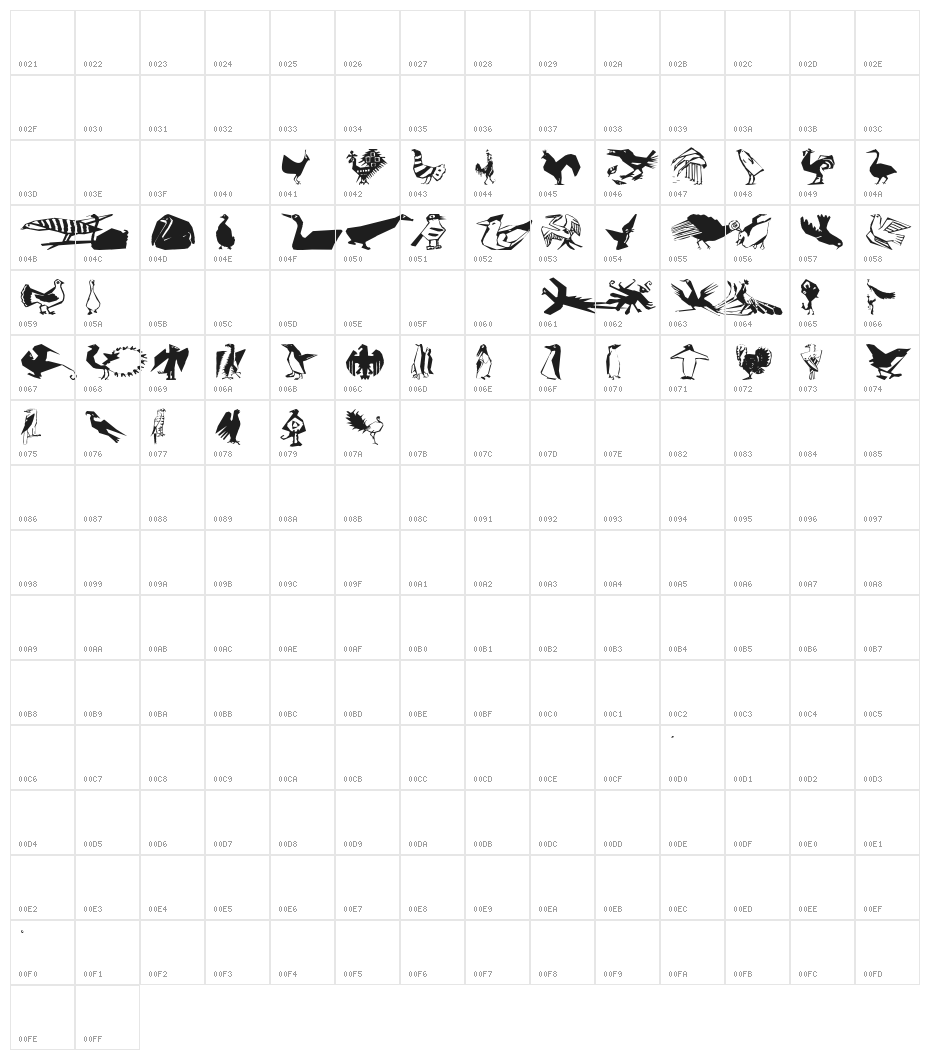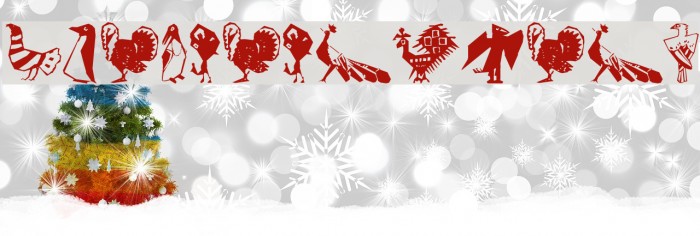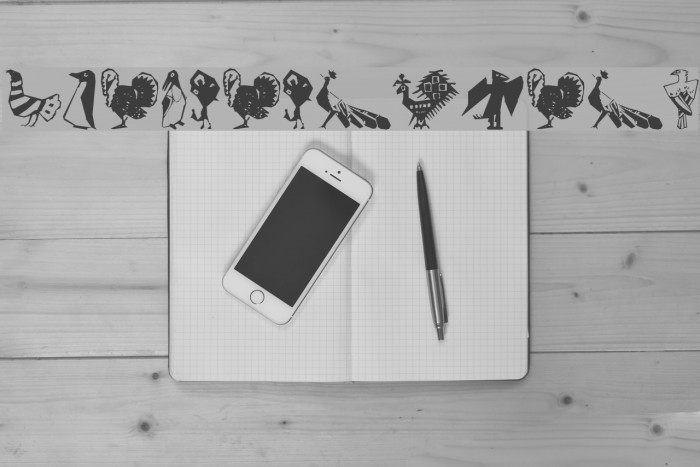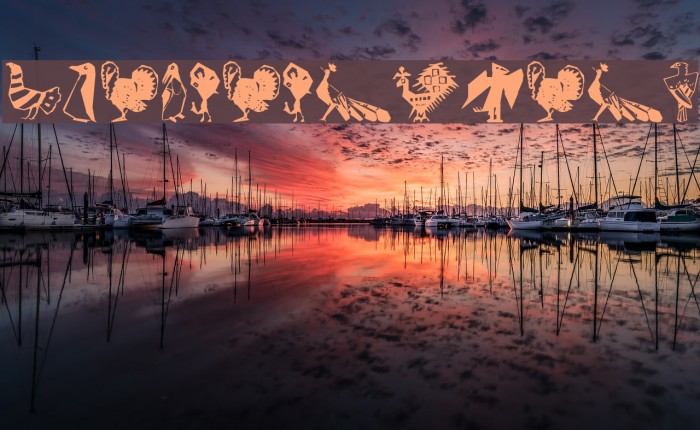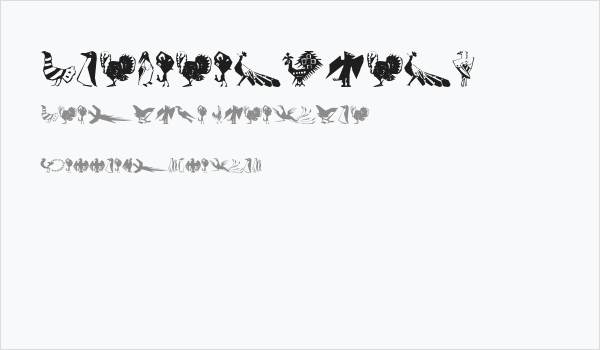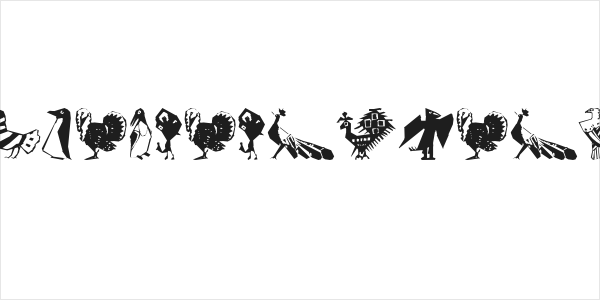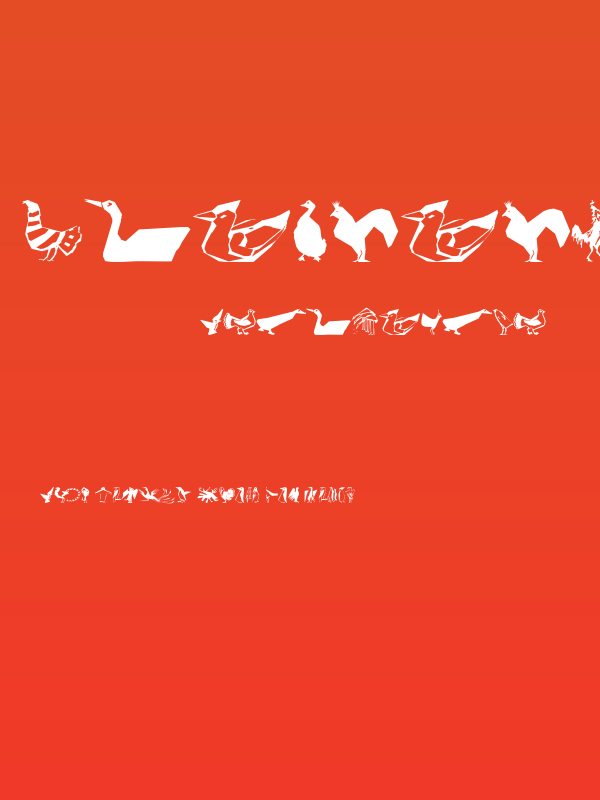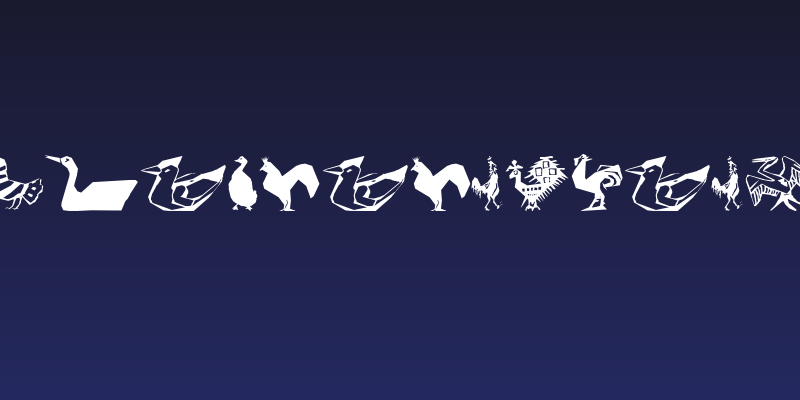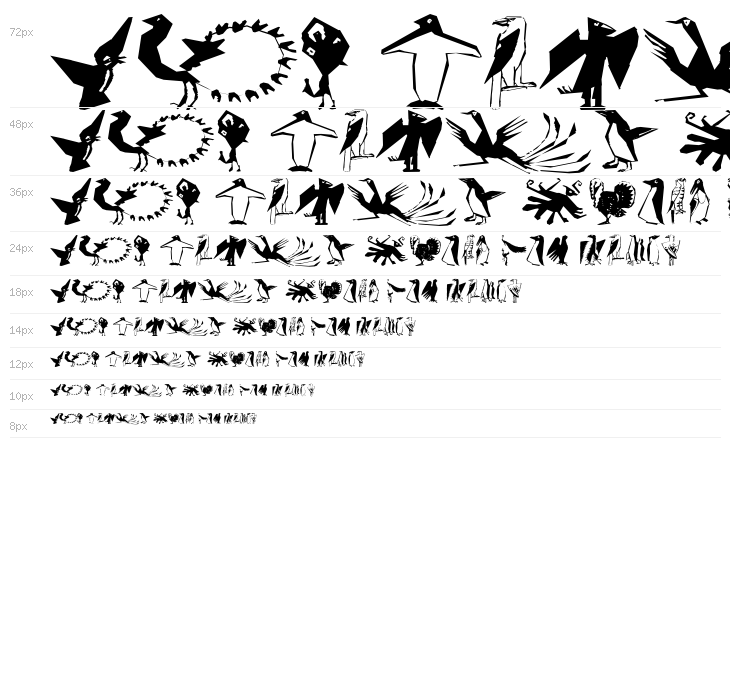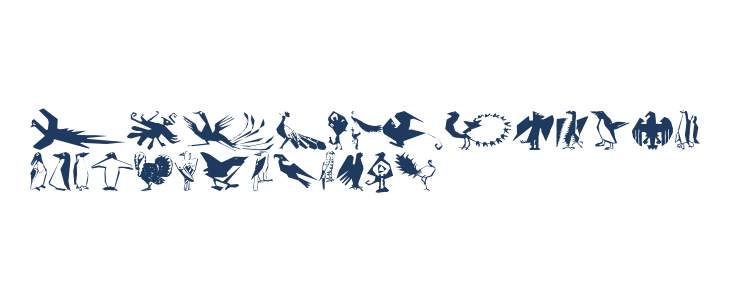
CorneredBirds Font
CorneredBirds Description
A highly decorative and playful dingbat font featuring a wide variety of stylized bird silhouettes, each character representing a different bird in a bold, abstract, and geometric manner. The glyphs are filled with solid black, offering strong visual contrast and unique shapes for each letter and symbol.
| Overall Style | Decorative, Playful, Abstract |
| Use Case | Logos, Posters, Decorative headlines, Themed graphics |
| Proposed Projects | ChildrenΓ’β¬β’s books, wildlife posters, educational materials, branding for zoos or bird-related organizations, creative invitations. |